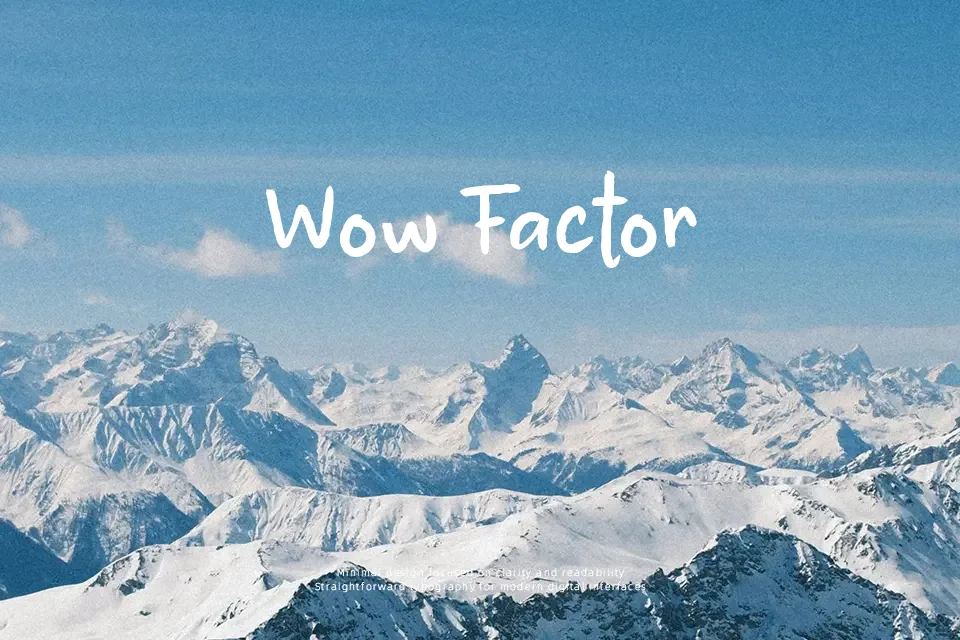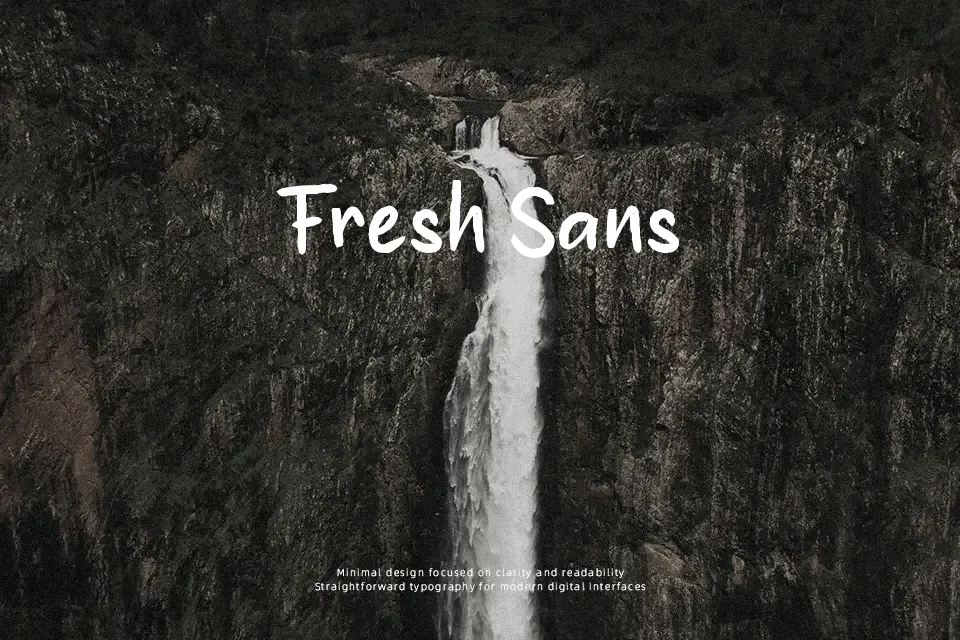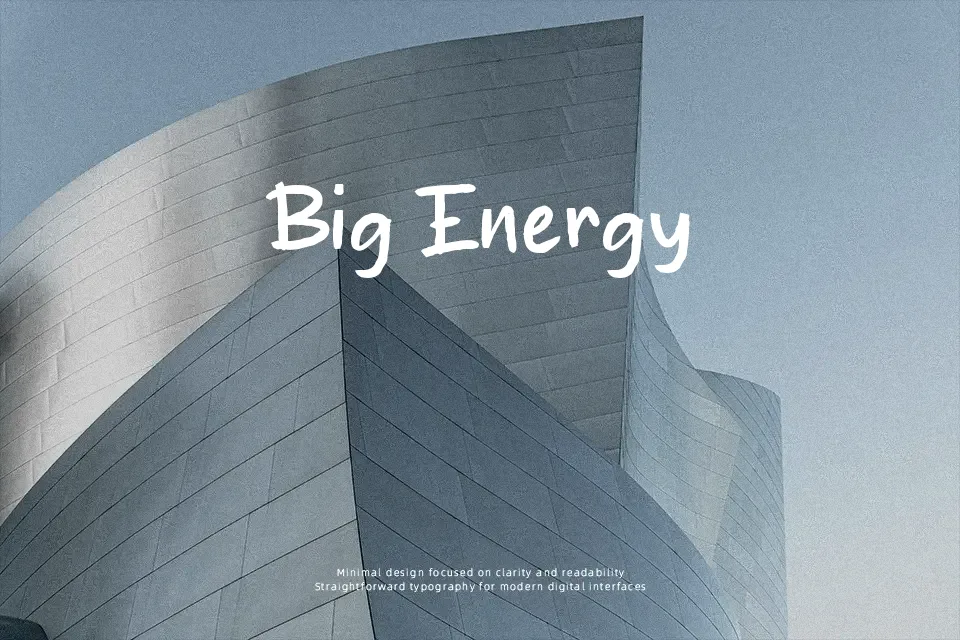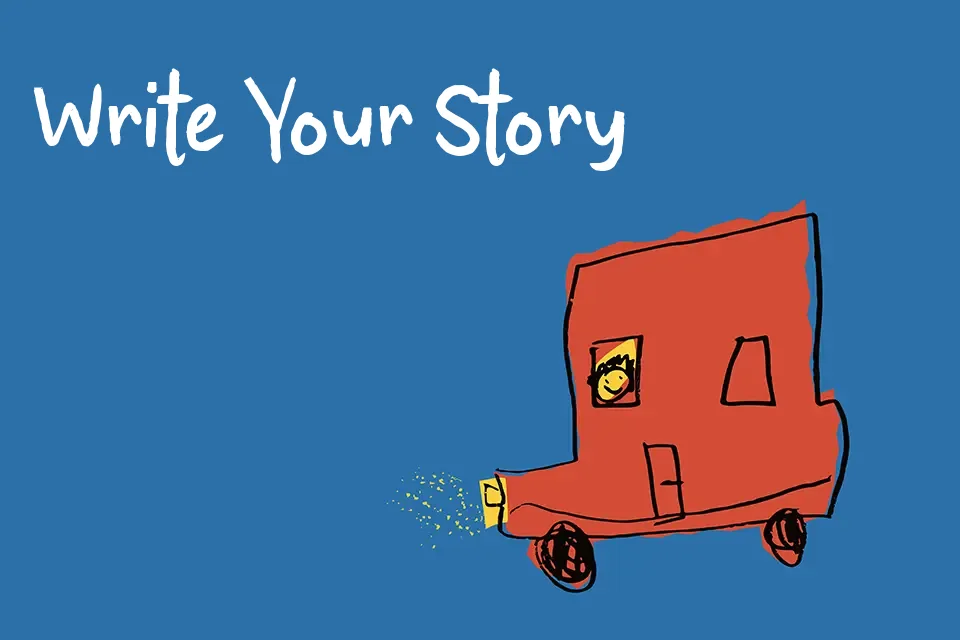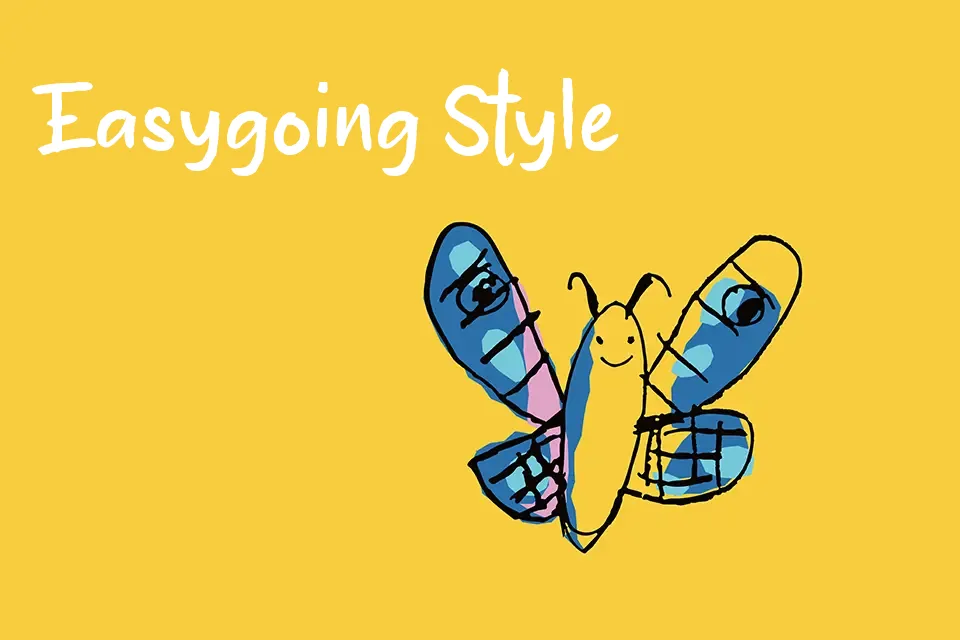
B Berantas Font
B Berantas has an informal, hand-drawn look with uneven strokes, slightly shaky curves, and relaxed spacing that feels like quick marker lettering on paper. Its comic-style structure adds a light, friendly tone, making it work well for kids’ birthday posters, classroom materials, casual YouTube thumbnails, or playful merch designs that need a spontaneous, doodle-like title. However, the irregular forms and low typographic discipline make it tiring in long paragraphs or small UI text. It works when you want a bold, messy headline with personality, but falls short in projects that demand polished, professional typography.
kids birthday invitation titles
fun event posters and flyers
playful social media graphics
casual YouTube or streaming thumbnails
long paragraph text or articles
formal corporate branding or reports
small-size body copy or UI text
serious editorial layouts
Perfect for headline, kids, and logo, with a artistic and comic style.